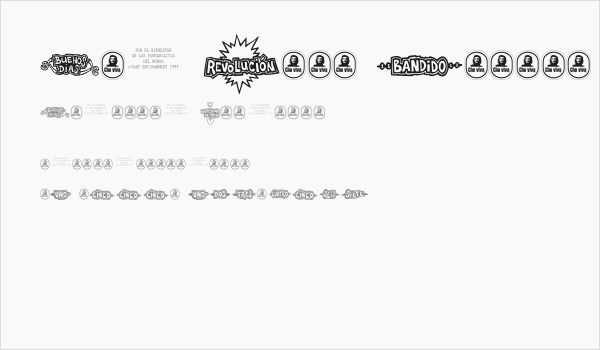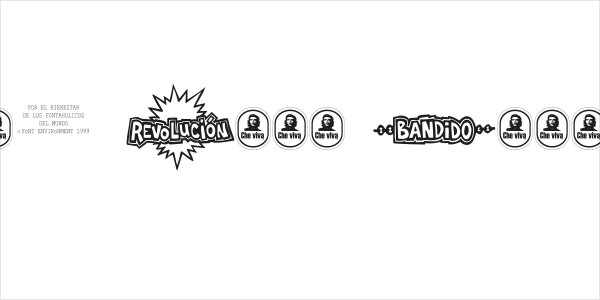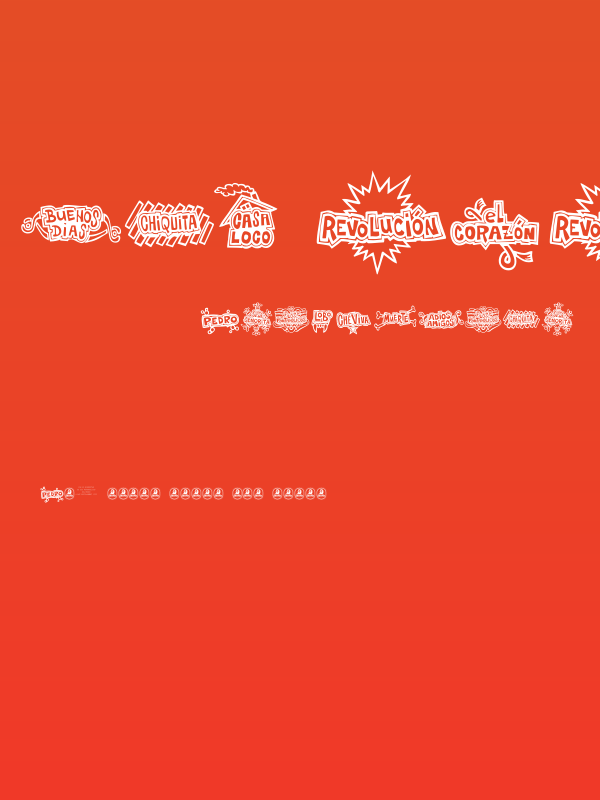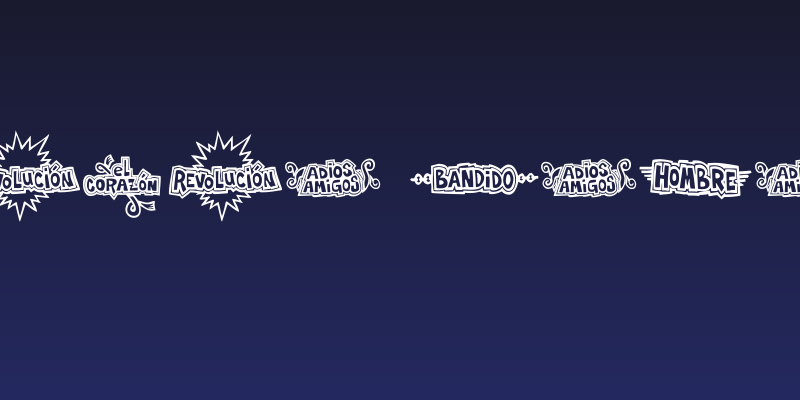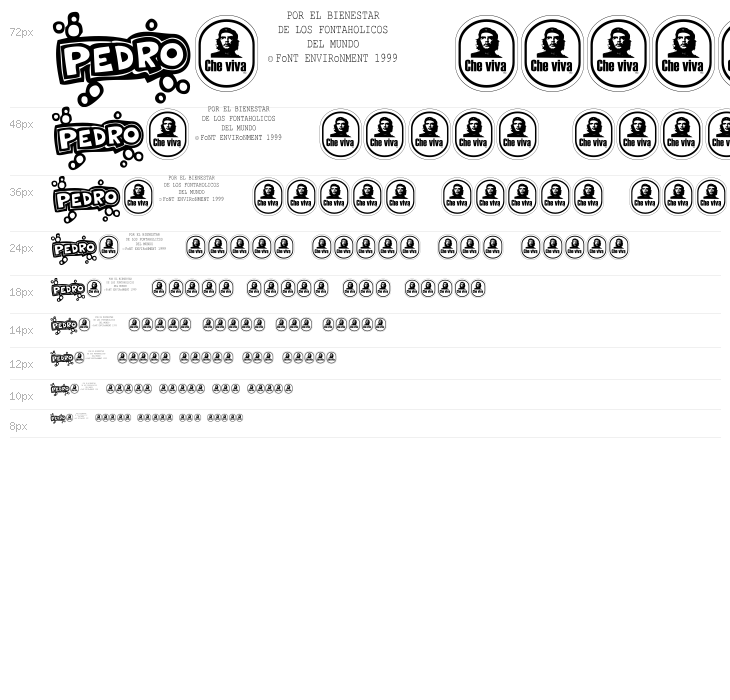
Che Viva Banana Font
Che Viva Banana Description
This font is a highly decorative and playful typeface that incorporates various graphic elements and themes into each character. Each letter or word is uniquely styled, often with accompanying imagery that reflects a whimsical or thematic design. The font features bold, cartoon-like outlines and a mix of sharp and rounded edges, giving it a dynamic and eye-catching appearance. It is ideal for creative projects that require a fun and engaging visual impact. The characters are tightly spaced, enhancing the boldness and presence of the text. The font's unique style makes it suitable for use in themed events, posters, or any project that benefits from a lively and unconventional typeface.